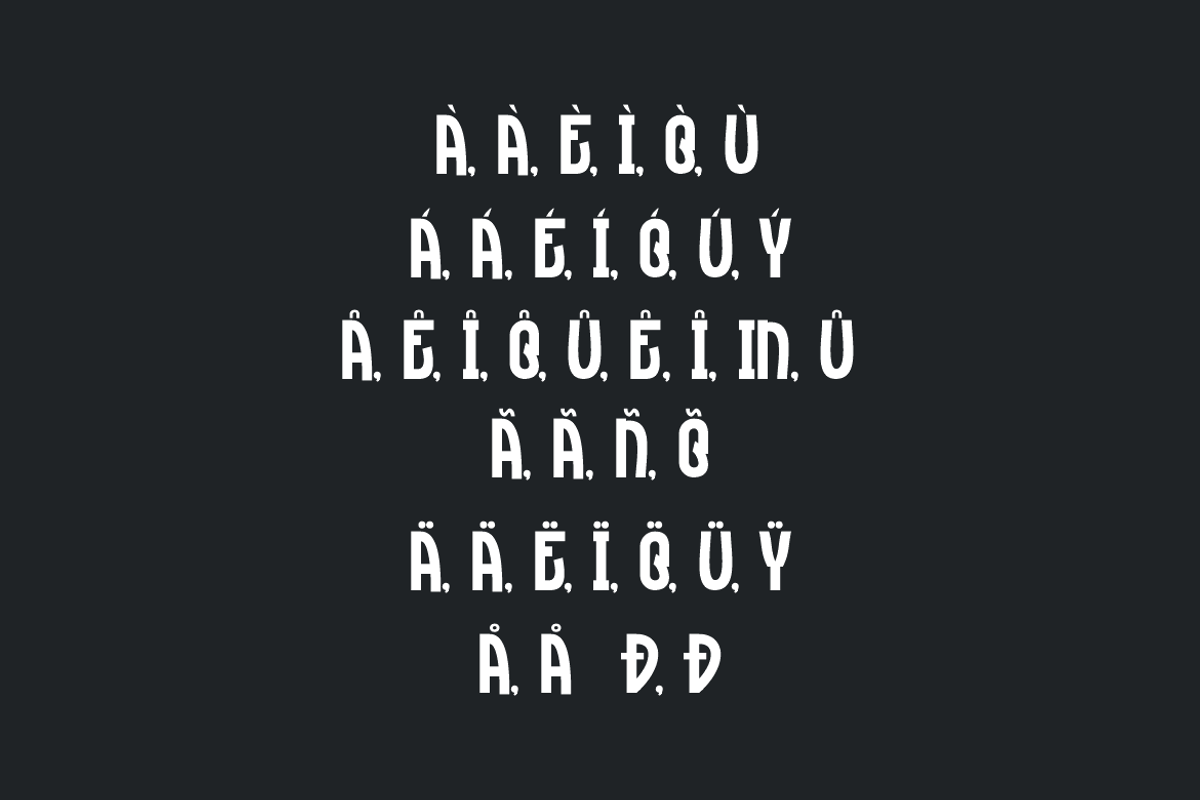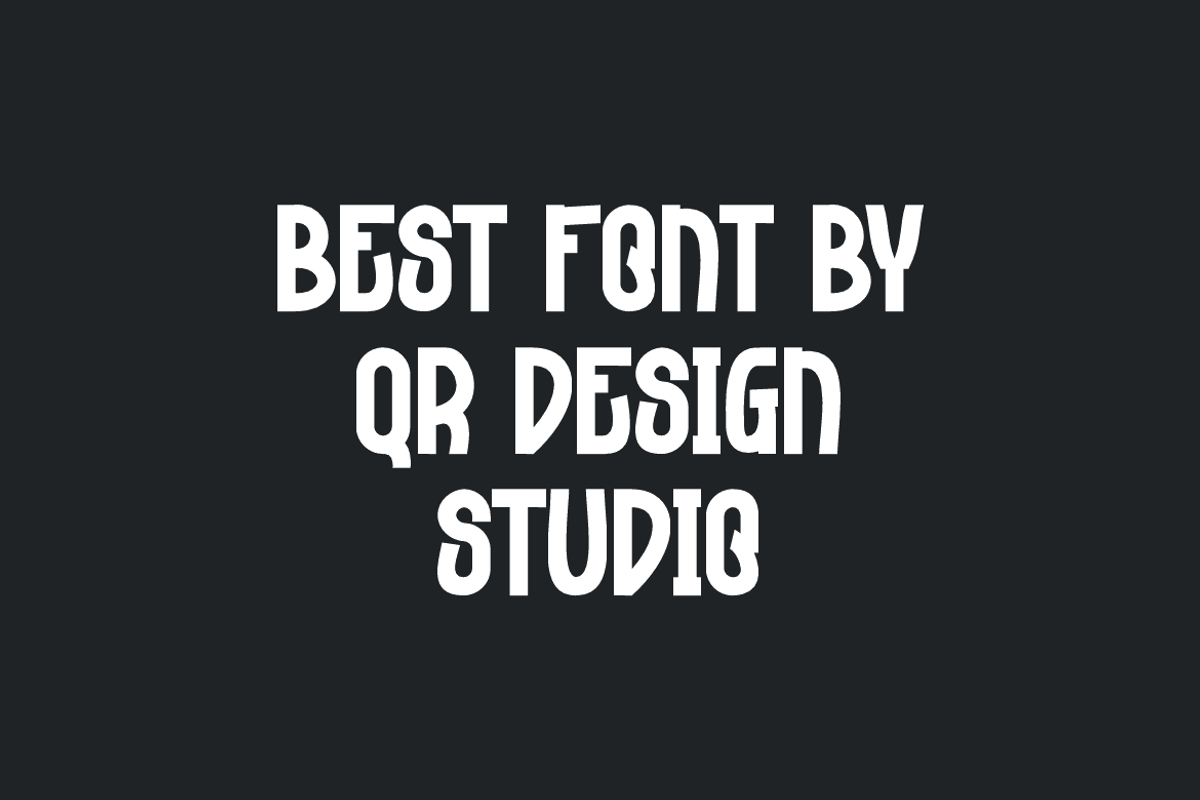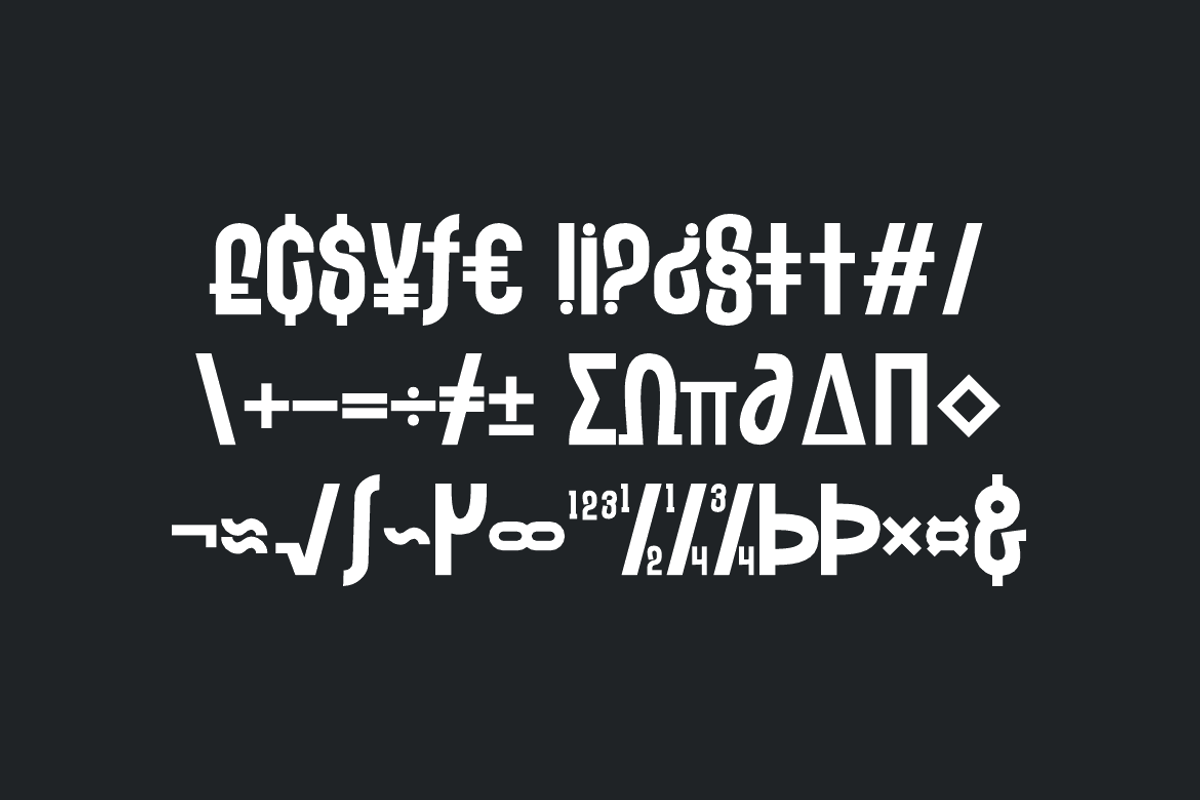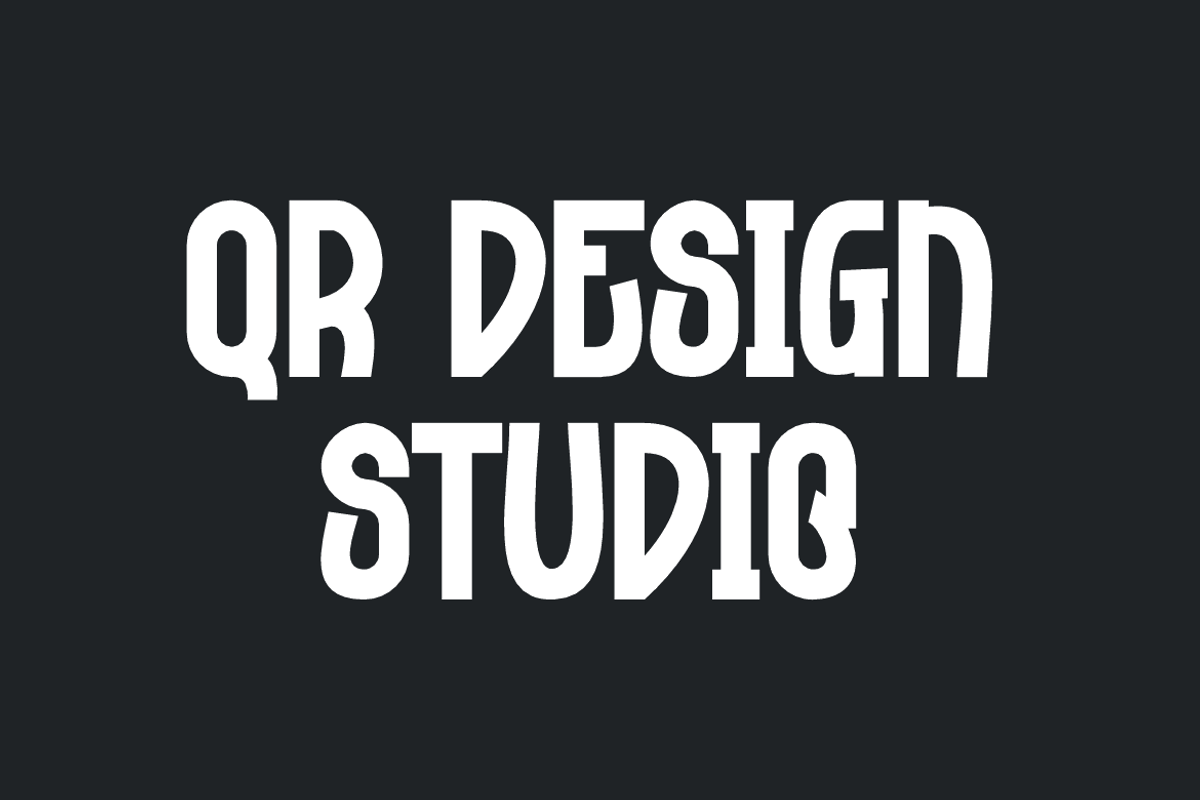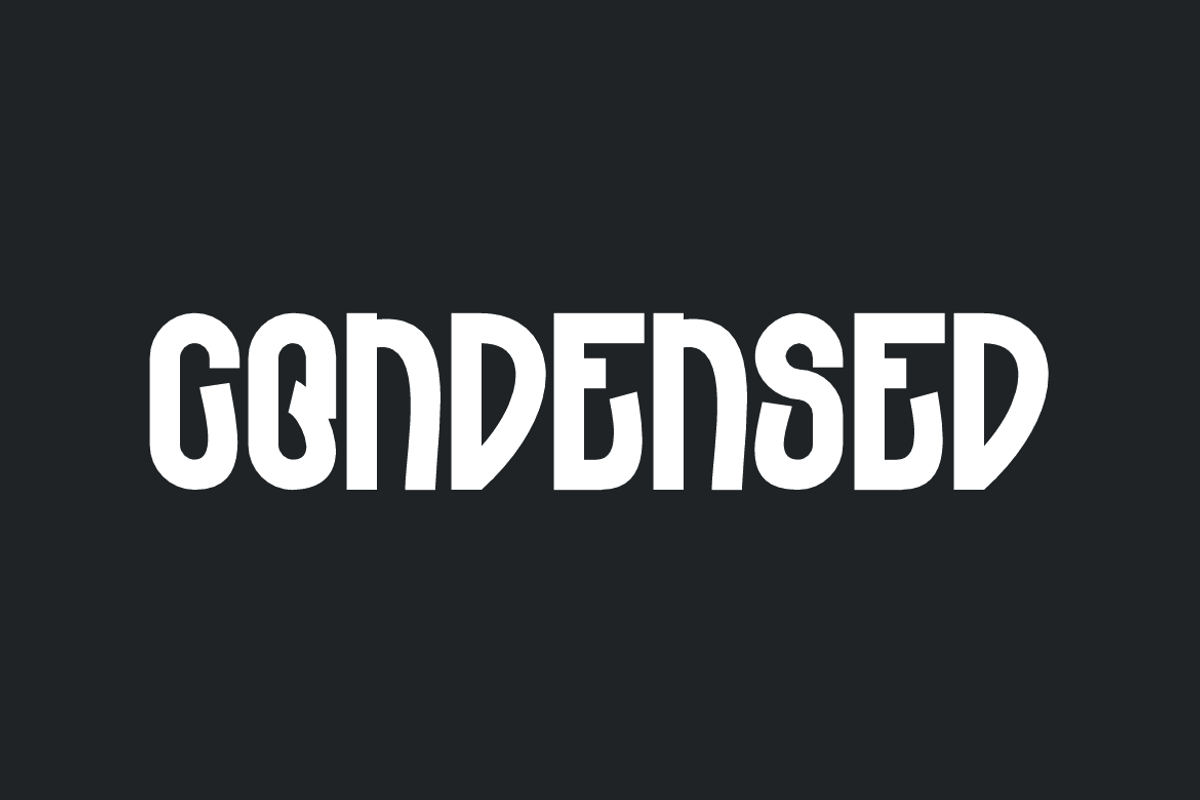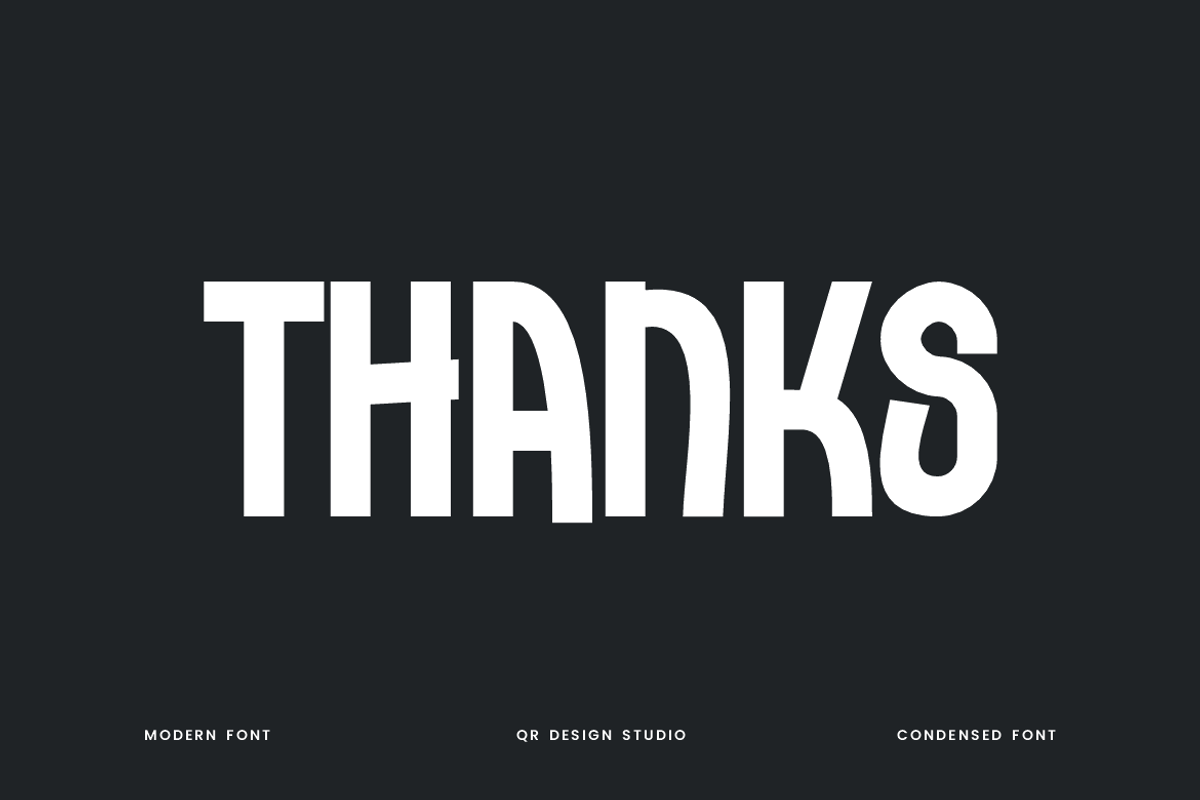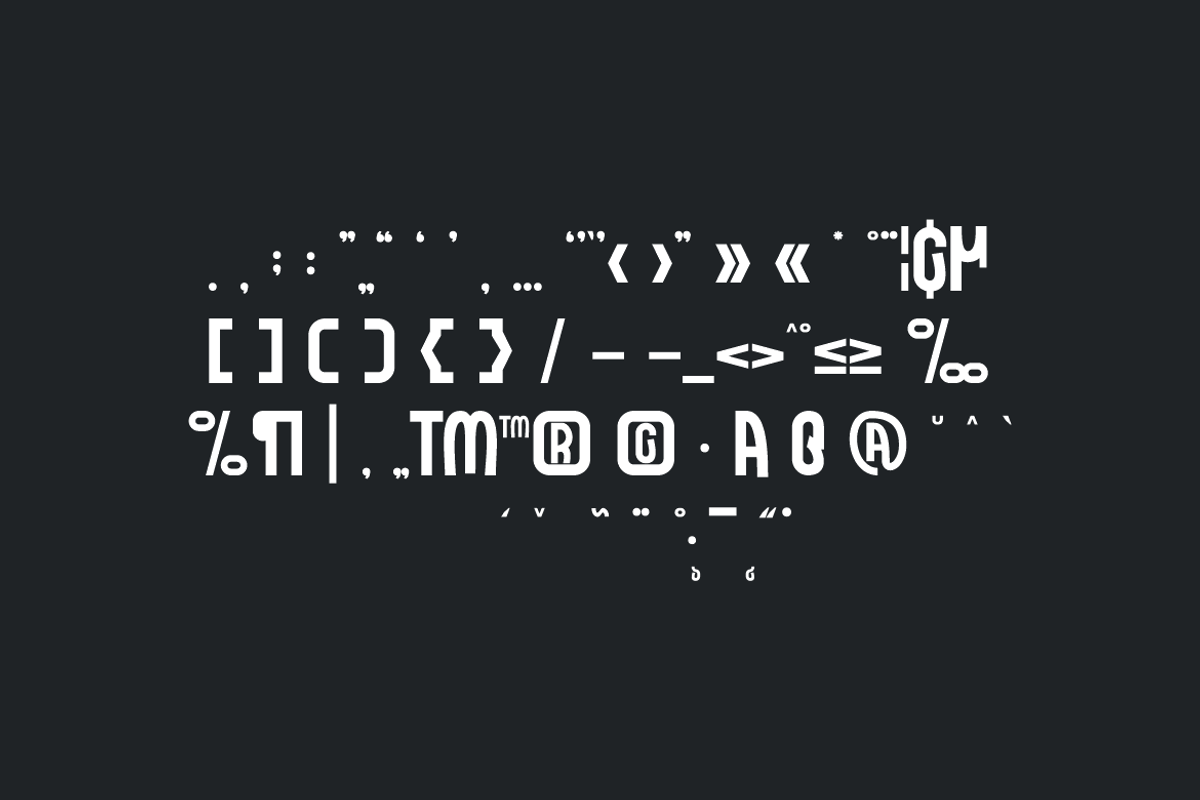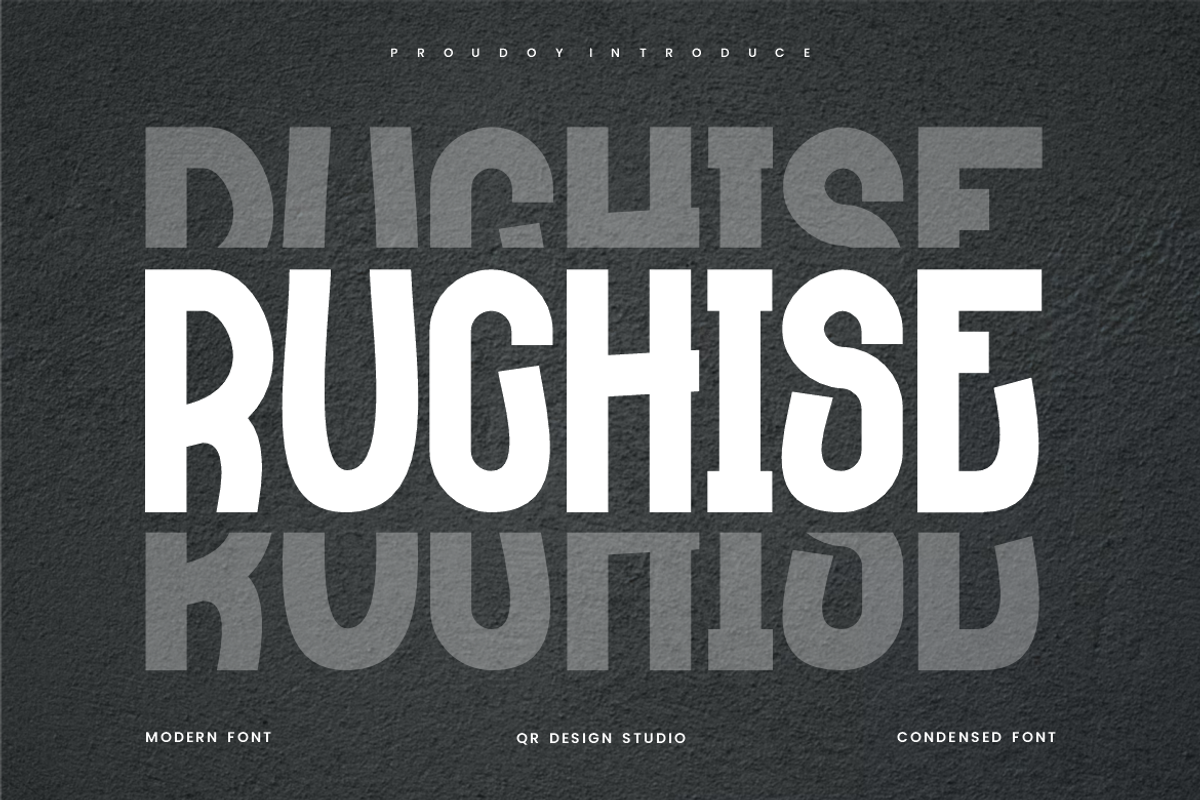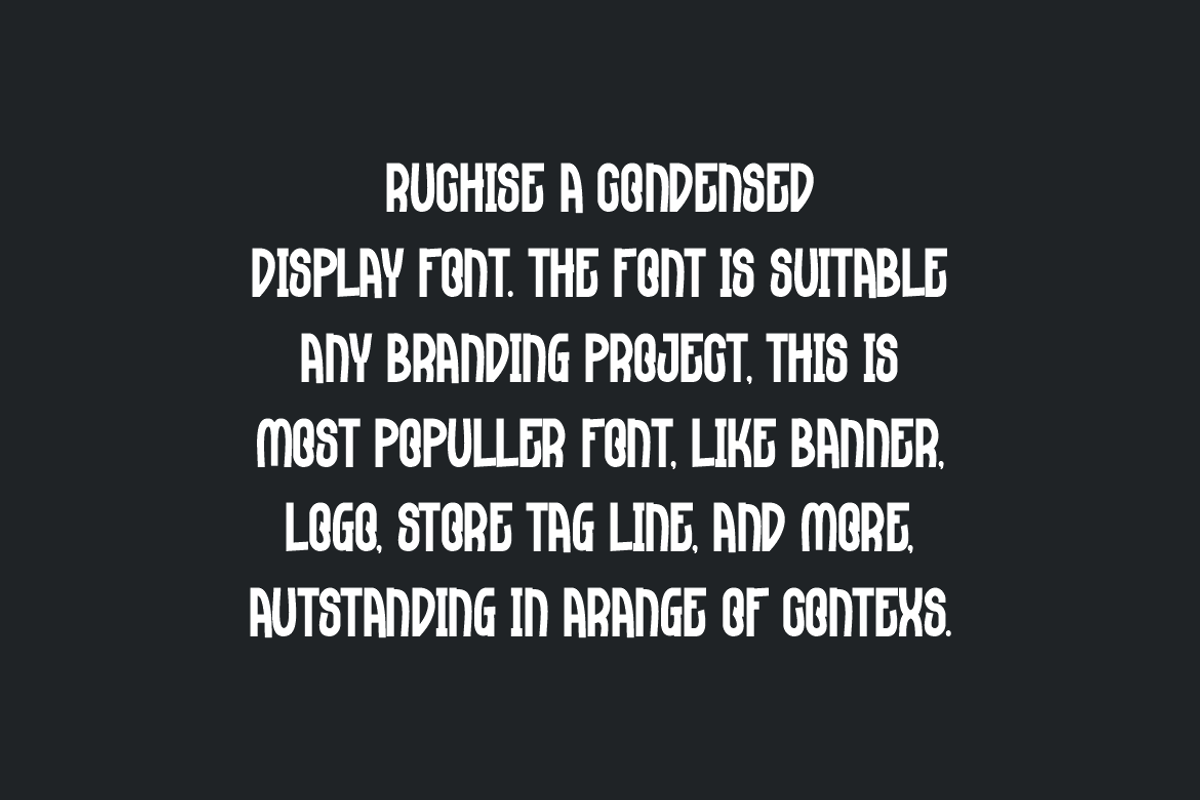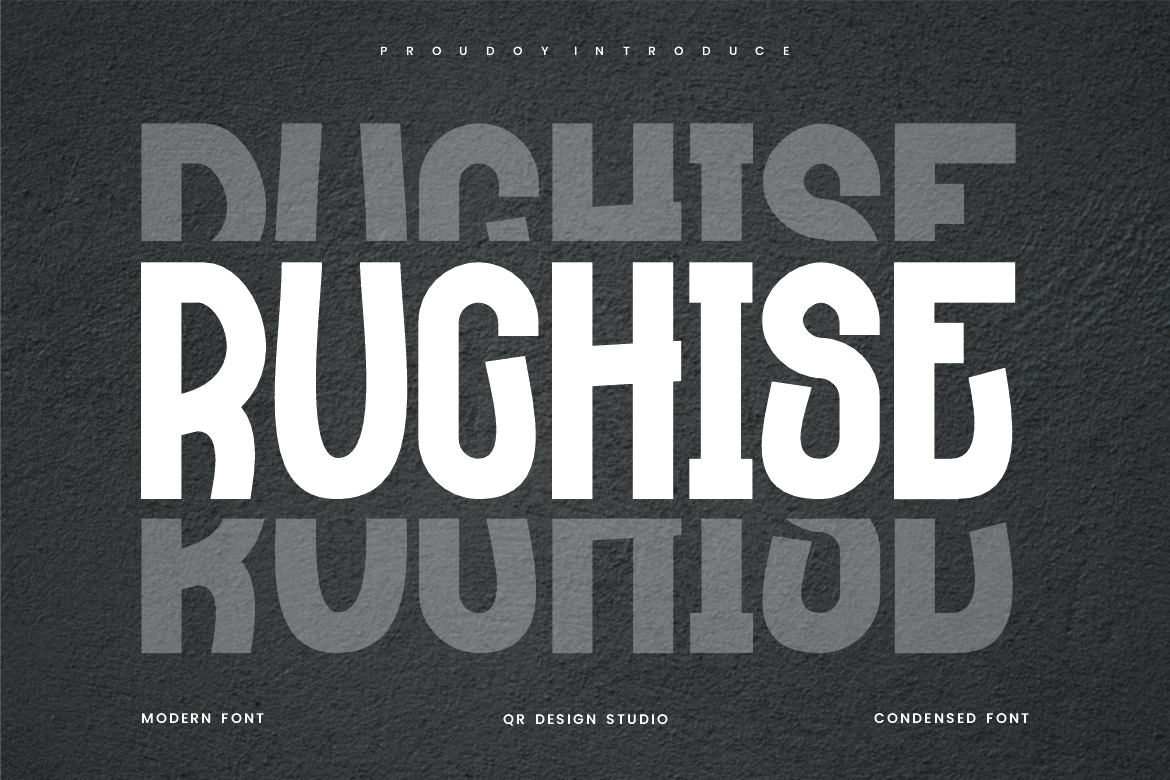
Ruchise - Condensed Font
Ruchise Font is a bold and authentic display font. The font is suitable for any branding project like poster, logo, sport, and many more. Outstanding in a wide range of contexts.